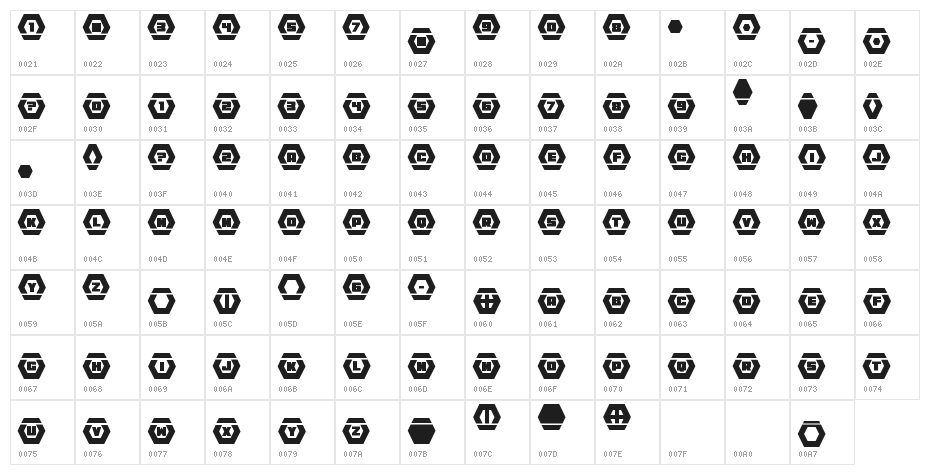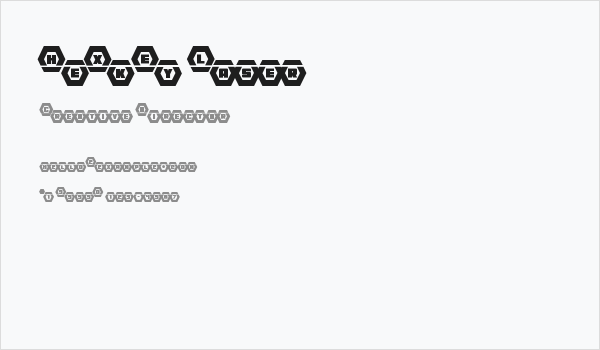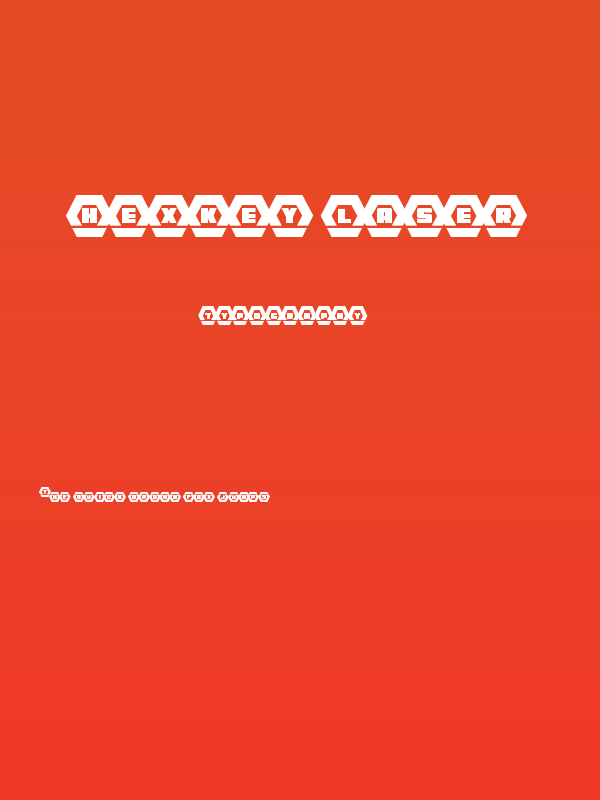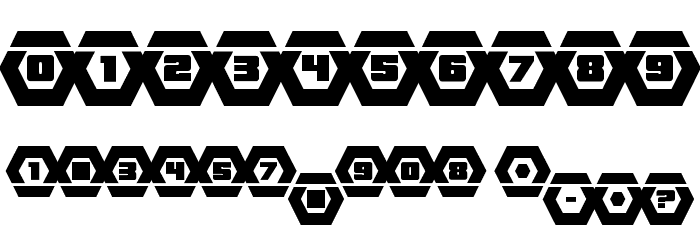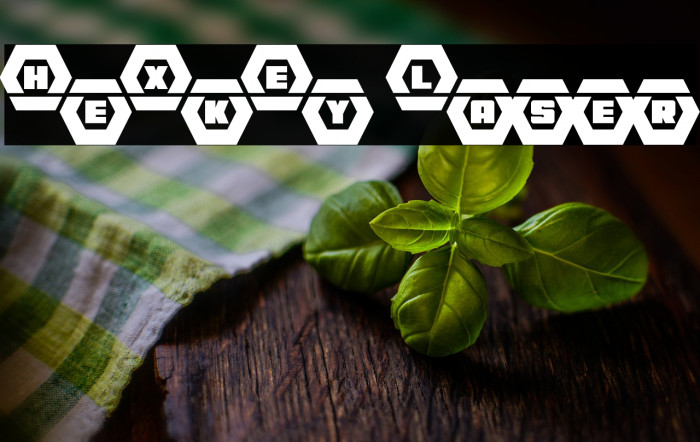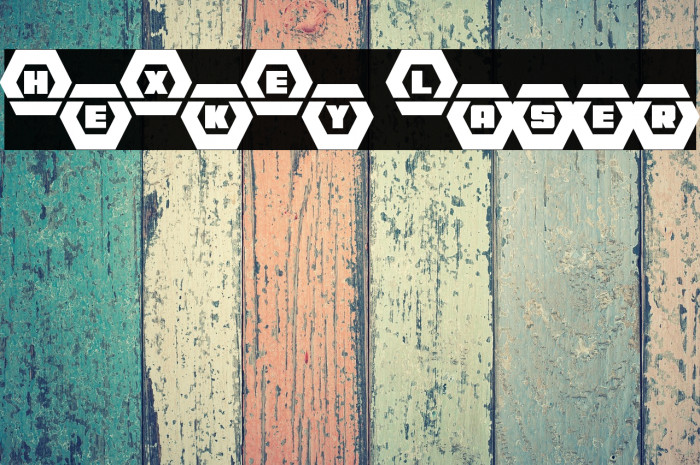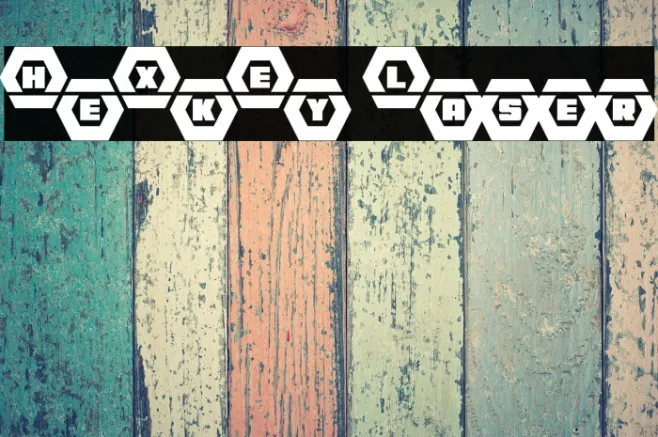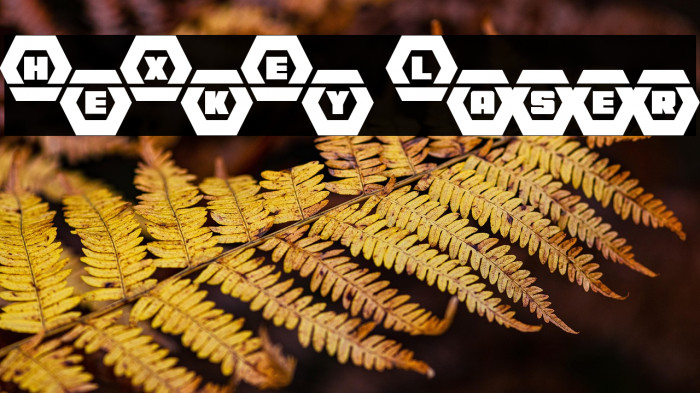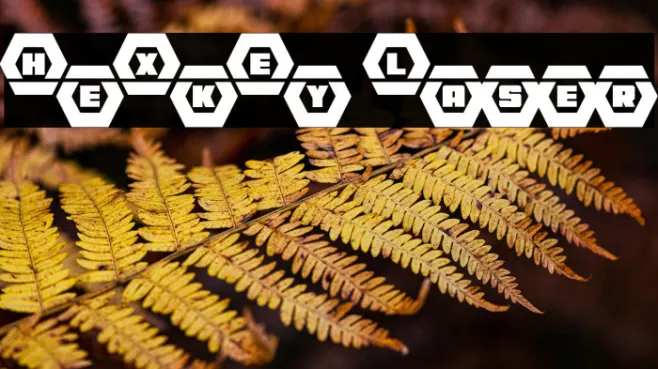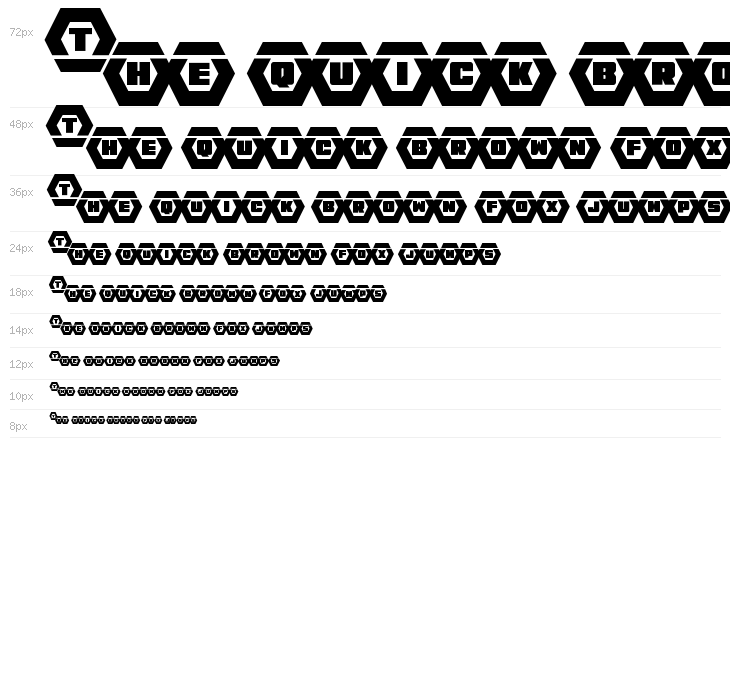
HeXkEy Laser Font
HeXkEy Laser Description
This font features a bold, geometric design with each character enclosed within a hexagonal shape. The letters and numbers are crafted with a futuristic and industrial aesthetic, making them stand out with a strong visual impact. The uniformity of the hexagonal enclosures gives the font a cohesive and structured appearance, suitable for projects that require a modern and edgy look. The characters are evenly spaced, maintaining a consistent rhythm across the text. This font is ideal for creating attention-grabbing headlines, logos, and posters where a bold statement is needed.